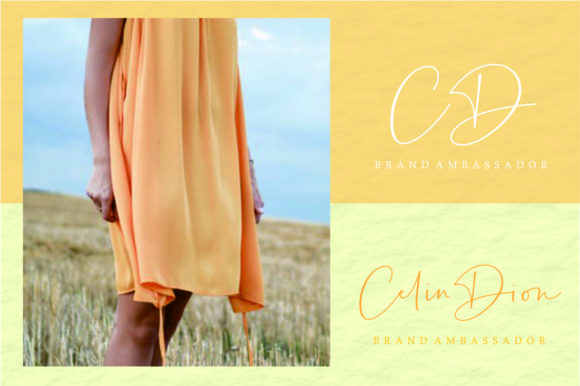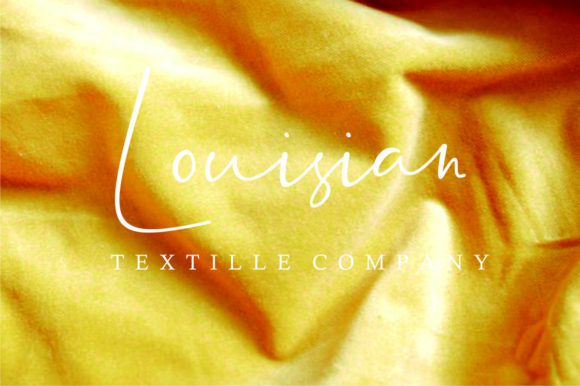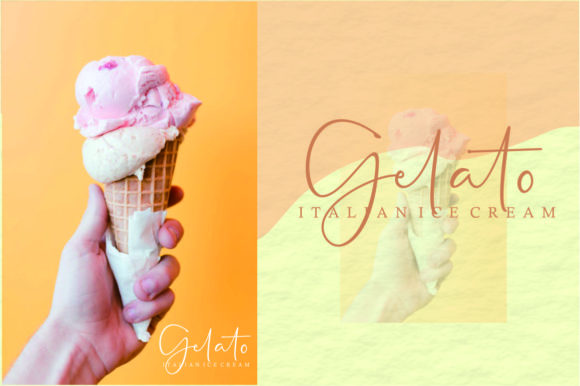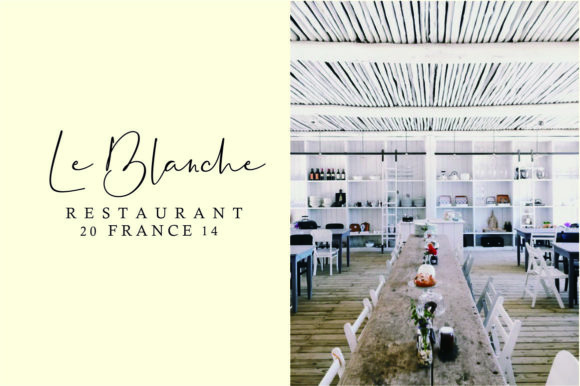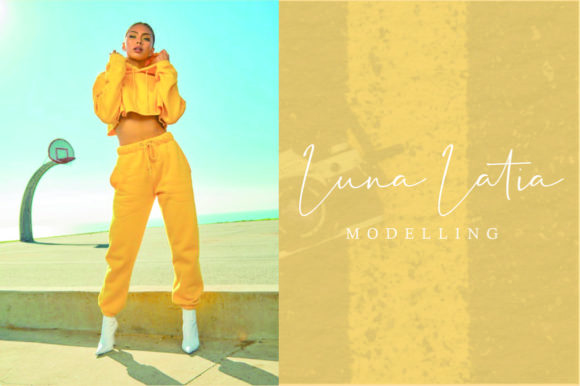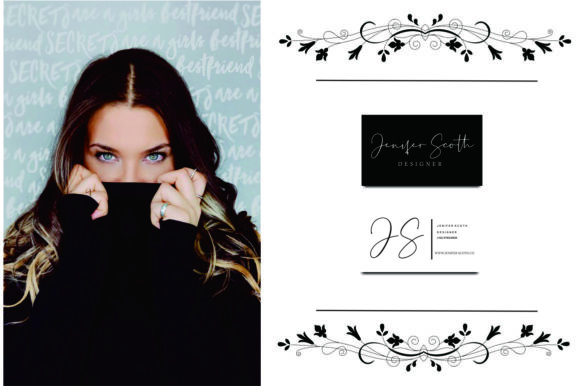
Dantina Font: Elevate Your Designs with Elegant Handwritten Style
The Dantina font is an amazing handwritten font that has been gaining popularity among designers and crafters alike. Its elegant style and natural feel make it the perfect addition to any design project. In this article, we’ll dive into the world of Dantina font, exploring its features, benefits, and uses.
What is Dantina Font?
Dantina font is a beautiful handwritten font that exudes elegance and sophistication. Its unique, cursive style is reminiscent of traditional calligraphy, but with a modern twist. The font is designed to add a personal touch to your designs, making them stand out from the crowd.
Key Features of Dantina Font
• Elegant Style: Dantina font boasts an elegant, cursive style that’s perfect for designs that require a touch of sophistication.
• Handwritten Look: The font has a natural, handwritten look that’s sure to add a personal touch to your designs.
• Versatile: Dantina font is versatile and can be used for a wide range of design projects, from branding and advertising to packaging and stationery.
• Easy to Read: Despite its elegant style, Dantina font is easy to read, making it perfect for body text and headlines.
Benefits of Using Dantina Font
So, why should you use Dantina font in your designs? Here are just a few benefits:
• Adds a Personal Touch: Dantina font adds a personal touch to your designs, making them more relatable and engaging.
• Creates Emotional Connection: The font’s elegant style and handwritten look create an emotional connection with your audience, making them more likely to engage with your brand.
• Stand Out from the Crowd: Dantina font is unique and distinctive, making it the perfect way to stand out from the crowd and differentiate your brand.
Uses of Dantina Font
Dantina font is versatile and can be used for a wide range of design projects, including:
• Branding and Advertising: Use Dantina font to create elegant and sophisticated branding and advertising materials, such as logos, brochures, and billboards.
• Packaging Design: Add a personal touch to your packaging designs with Dantina font, making your products stand out on store shelves.
• Stationery and Invitations: Use Dantina font to create beautiful stationery and invitations that are sure to impress.
• Digital Design: Dantina font is perfect for digital design projects, such as website headers, social media graphics, and email marketing campaigns.
Tips for Using Dantina Font
Here are a few tips for using Dantina font in your designs:
• Pair with Simple Backgrounds: Pair Dantina font with simple backgrounds to make it stand out and showcase its elegance.
• Experiment with Colors: Experiment with different colors to find the perfect combination that complements your brand and design.
• Use for Headlines and Titles: Use Dantina font for headlines and titles to add a touch of elegance and sophistication.
In conclusion, Dantina font is an amazing handwritten font that’s perfect for adding a natural feel to your designs. Its elegant style, versatility, and ease of use make it a popular choice among designers and crafters. Whether you’re working on a branding project, packaging design, or digital design, Dantina font is sure to elevate your designs and make them stand out from the crowd.